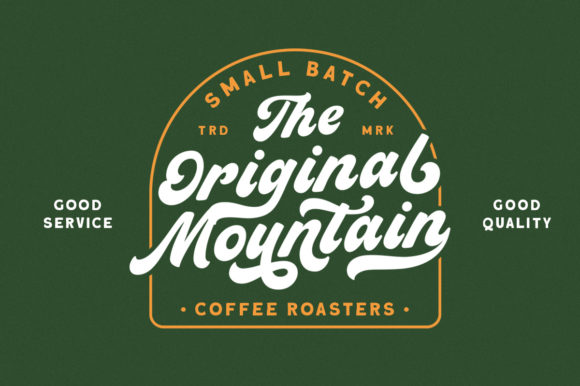
Blantika Font
db-ku.com - Script & Handwritten -- Blantika is a beautiful and bold vintage styled script font. This font reads as strong, confident, and dynamic and can add tons of nostalgic character to your designs.